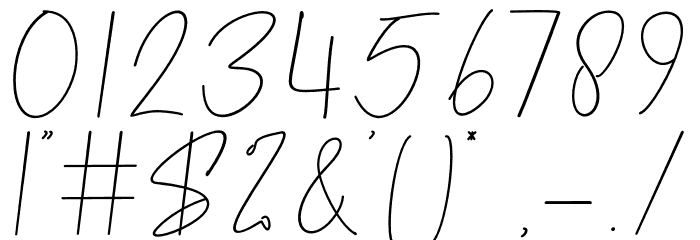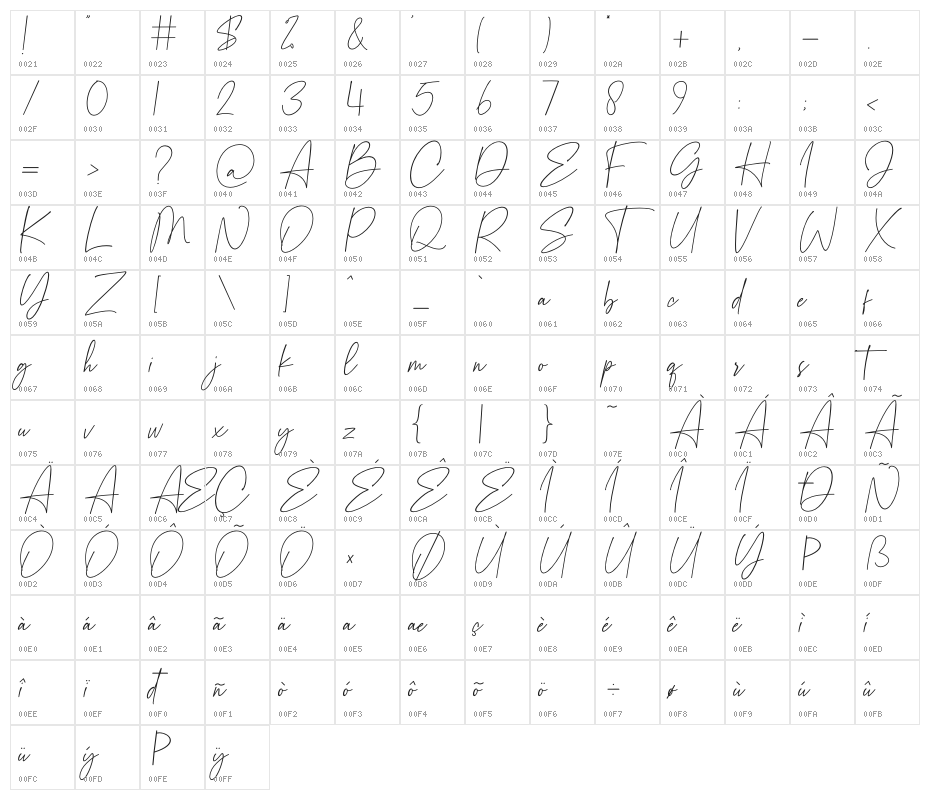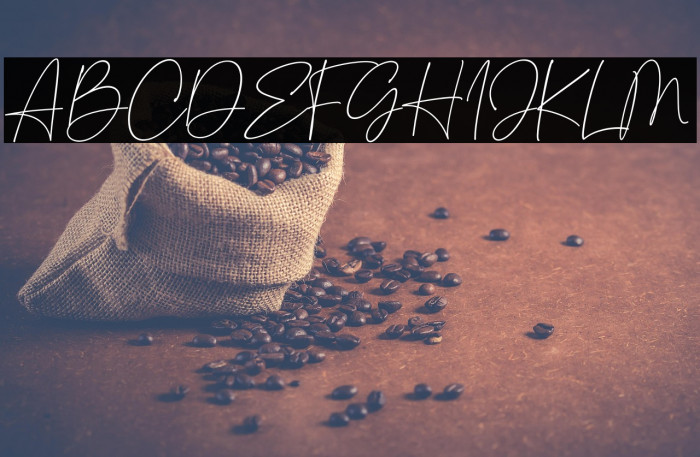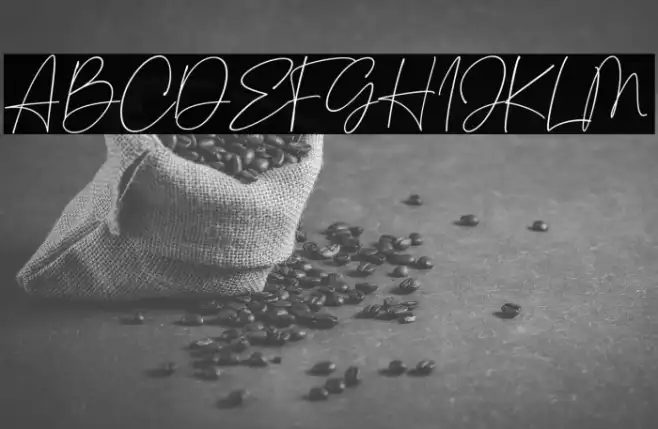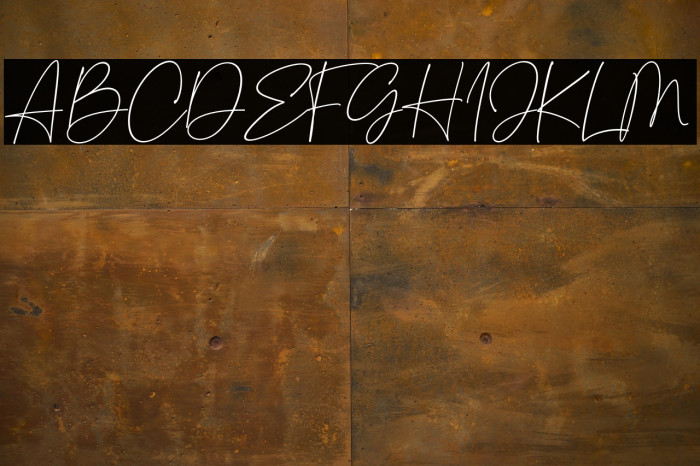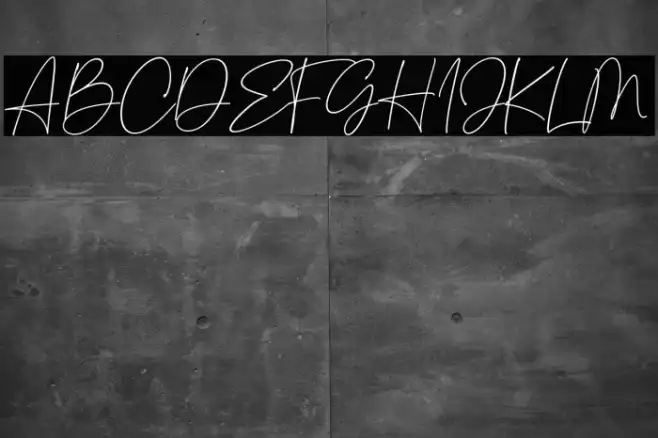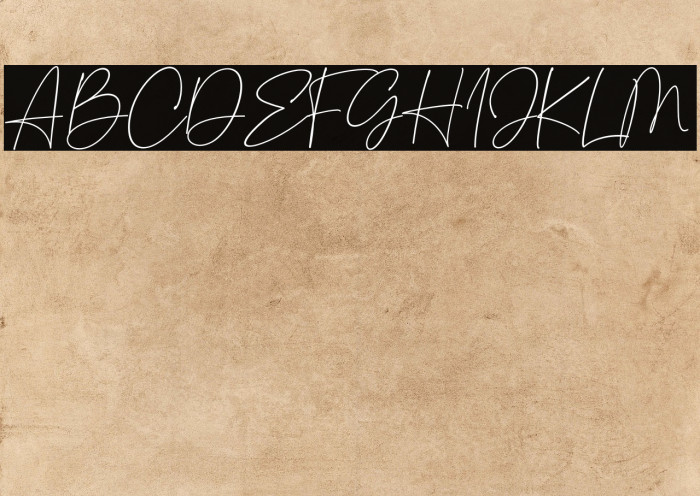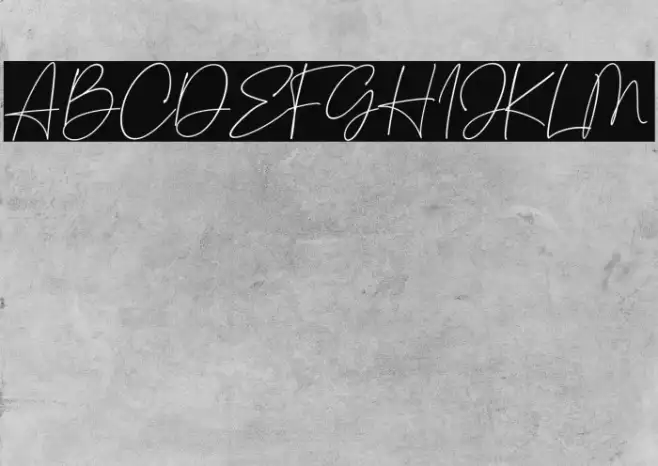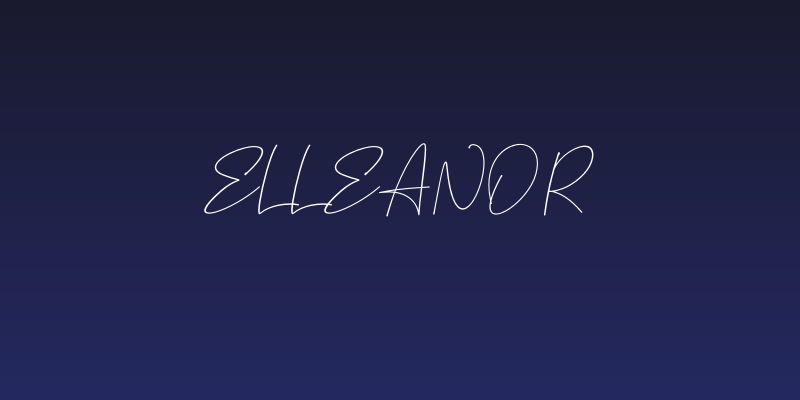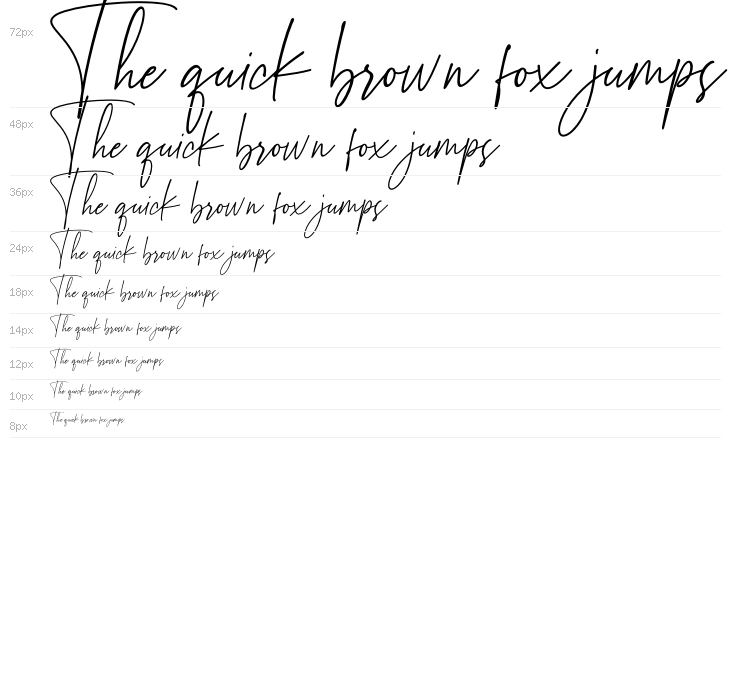
Elleanor Font
Elleanor Description
This font exudes a modern and elegant handwritten style, characterized by its fluid and cursive letterforms. The uppercase letters are tall and slender, with a slight slant that adds a dynamic feel. The lowercase letters maintain a consistent flow, enhancing the script-like appearance. Numbers and special characters are designed to complement the overall aesthetic, maintaining the same graceful curves and thin strokes. The font's delicate lines and airy spacing make it ideal for projects that require a touch of sophistication and personal flair.
| Proposed Projects | Ideal for wedding invitations, personal branding, greeting cards, and elegant packaging designs. |